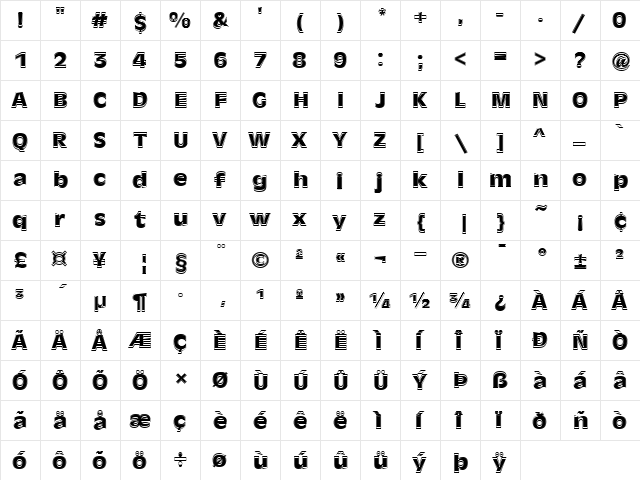
Antique Olive T In1 Regular
Design Context for Antique Olive T In1 Typeface
Antique Olive T In1 has the warm character of retro typography — evoking diners, record sleeves, and the golden age of print advertising.
Perfect for vintage-inspired branding, retro packaging, nostalgia campaigns, and period-accurate editorial design.
Font Pairing: Combine Antique Olive T In1 with a simple slab or neutral sans — period-accurate companions reinforce the vintage feel without competing for attention.
Pro Tip: Use Antique Olive T In1 for headlines and pull quotes rather than body copy — its personality is best appreciated in short, focused bursts.